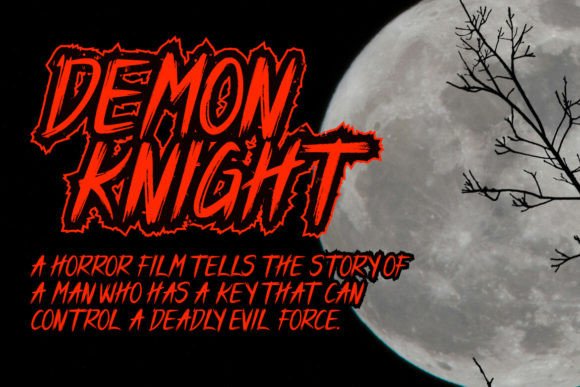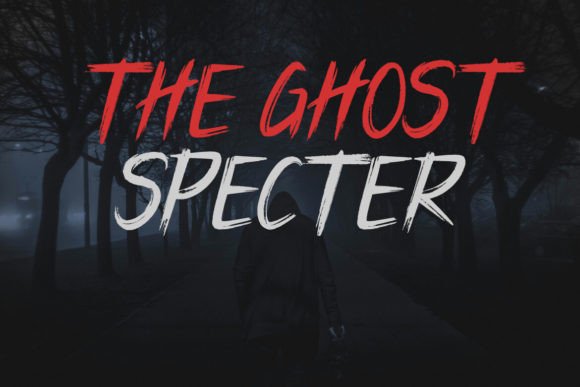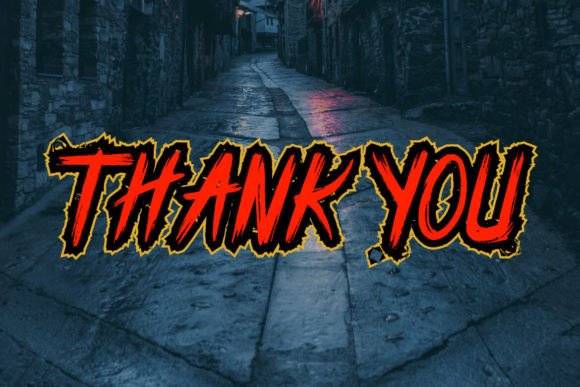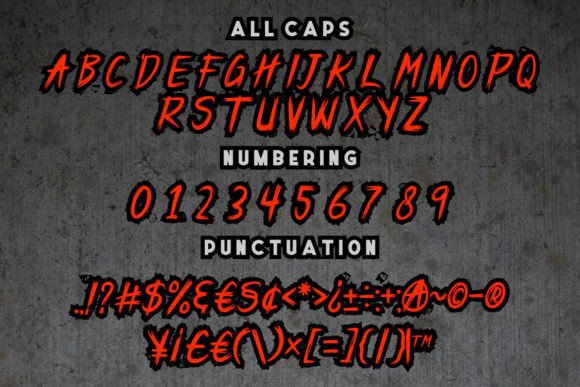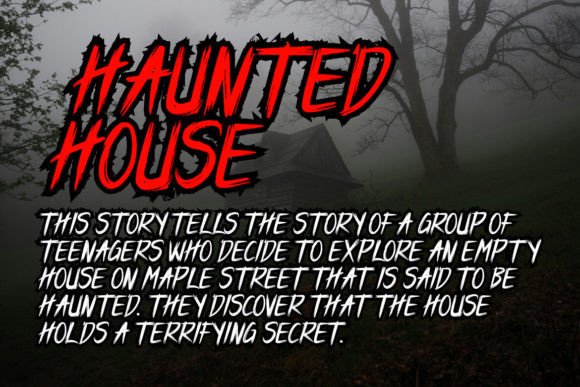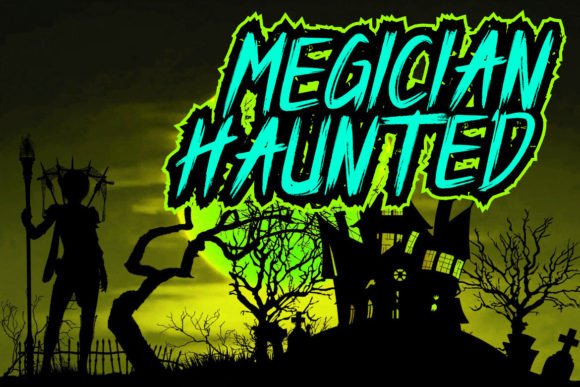
Dombret: A New Horror Font to Elevate Your Design
In the world of design, typography plays a crucial role in conveying the tone and aesthetic of a project. For those who dare to venture into the darker side of design, the Dombret font is here to make a statement. This new horror font is crafted with a high premium quality level, making it perfect for a wide range of applications, from flyers and quotes to posters, banners, packaging, merchandise, logotypes, and more.
The Birth of Dombret
Dombret is a meticulously designed font that embodies the essence of horror and mystery. Its creation was inspired by the darker corners of the design world, where the unconventional and the eerie come to life. The font’s design is characterized by its bold, rugged, and intimidating appearance, making it an ideal choice for designers who want to add a touch of fear to their work.
Key Features of Dombret
- High-Quality Design: Dombret is crafted with attention to detail, ensuring a premium quality that will elevate your designs.
- Versatile: This font is suitable for a wide range of applications, from print materials to digital projects.
- Eerie and Mysterious: Dombret’s unique design is perfect for conveying a sense of horror and suspense.
- Easy to Use: The font is designed to be user-friendly, making it easy to incorporate into your projects.
What Can You Create with Dombret?
The possibilities are endless with Dombret. Here are a few ideas to get you started:
- Flyers and Posters: Create eye-catching promotional materials that will grab attention.
- Quotes and Typography: Add a touch of horror to your inspirational quotes and typography projects.
- Banners and Signage: Make a statement with bold and eerie banners and signage.
- Packaging and Merchandise: Give your products a unique and memorable look with Dombret.
- Logotypes and Branding: Create a lasting impression with a bold and intimidating logo.
Why Choose Dombret?
In a world where design is constantly evolving, Dombret offers a unique and refreshing take on horror typography. Here are a few reasons why you should consider choosing Dombret for your next project:
- Uniqueness: Dombret stands out from the crowd with its bold and eerie design.
- Quality: The font is crafted with high premium quality, ensuring a professional finish.
- Versatility: Dombret can be used in a wide range of applications, making it a valuable addition to your design arsenal.
Dombret is a game-changer for designers who want to add a touch of horror to their work. With its high-quality design, versatility, and eerie appearance, this font is sure to elevate your designs to the next level. Whether you’re working on a flyer, poster, or logotype, Dombret is the perfect choice for those who dare to venture into the darker side of design.